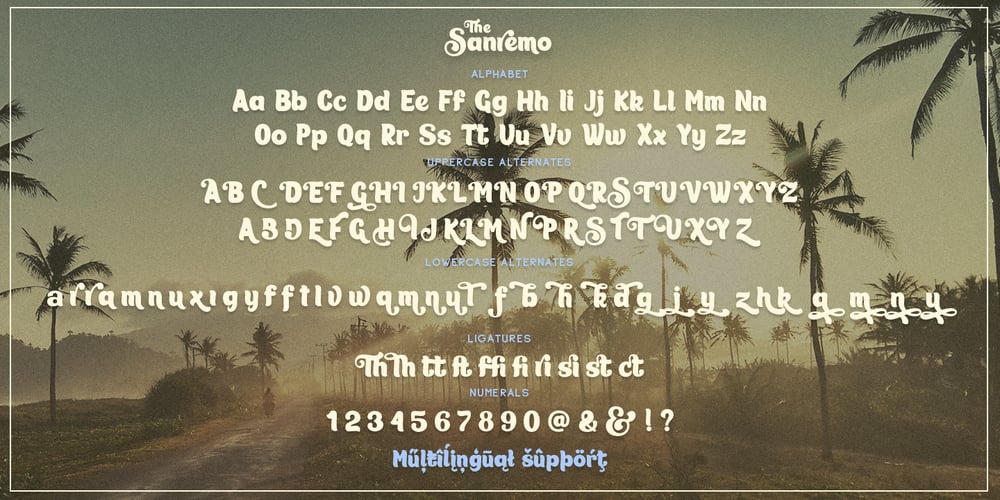
Sanremo Font Family was designed by Pavel Larin and published by Larin Type Co. Sanremo contains 1 styles and family package options. Sanremo – this bold display font is a stylish and original multipurpose font in a modern style with many alternatives and ligatures that are very attractive. With their help you can make your project unique. Use the main set to highlight exactly what you need. All characters in this font are PUA-encoded and can be accessed from the Glyph panel.